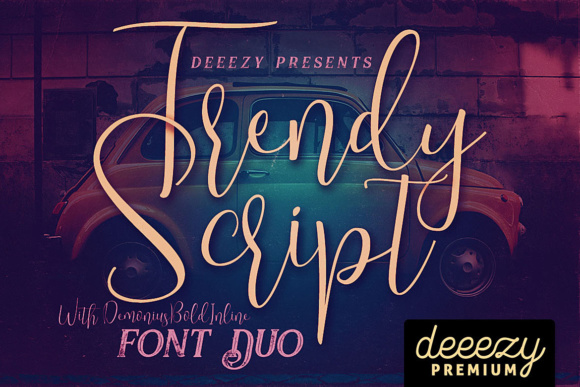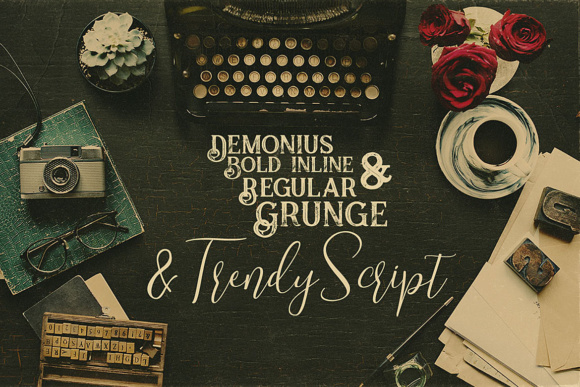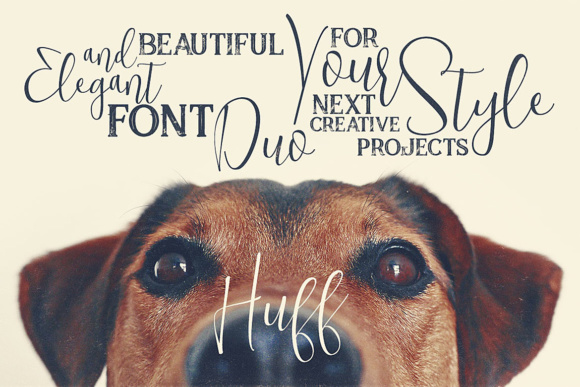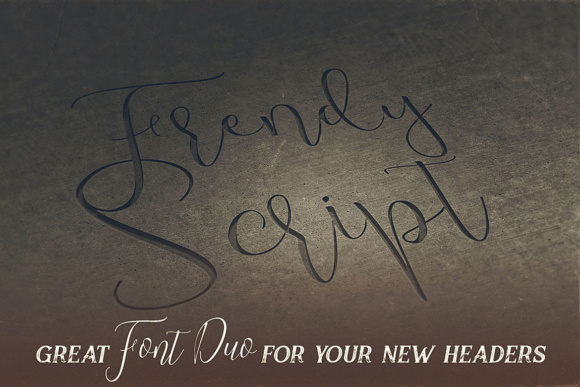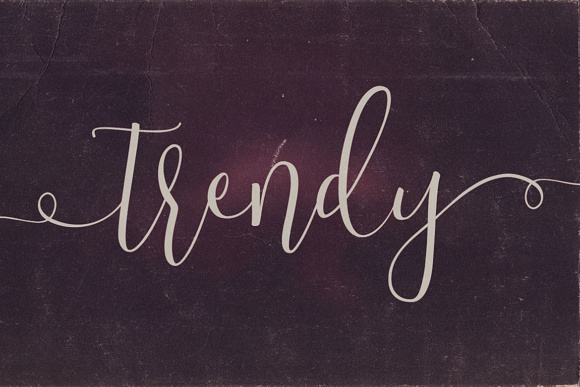
Trendy Font
About Trendy Font
Trendy is a gorgeous script font with a retro flair, ideal for use in a wide range of projects. This font is modern, thin and unique so it works well in a ton of different project types–this download comes with a second font, Demonius, so you can create complementary typographic projects!